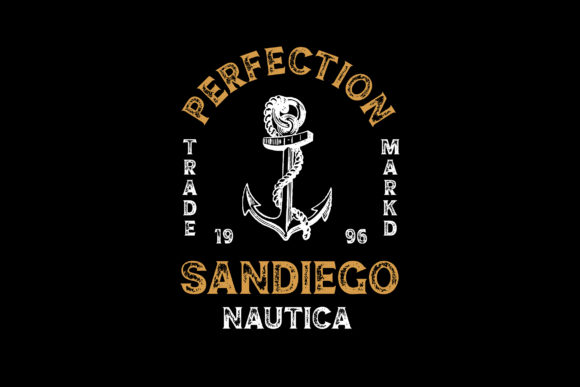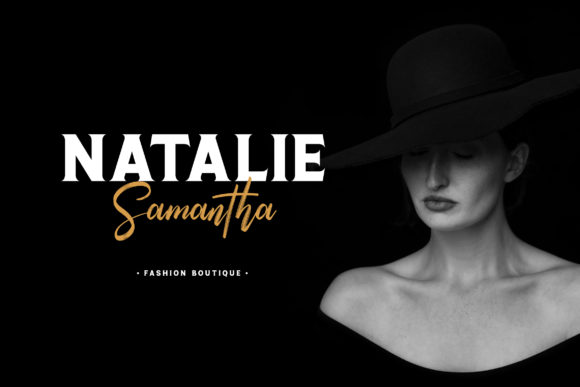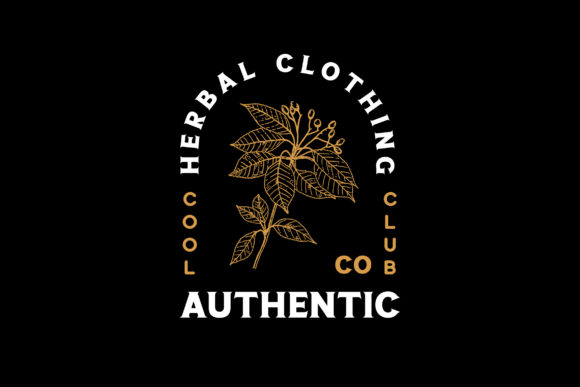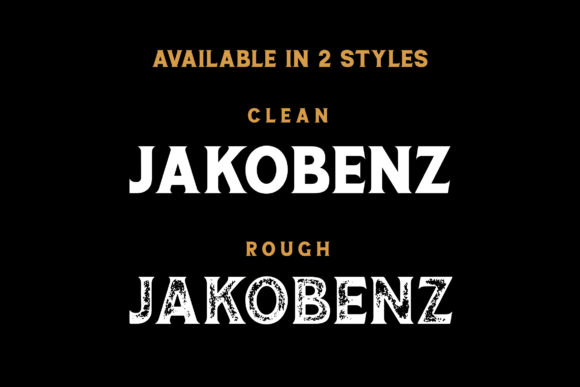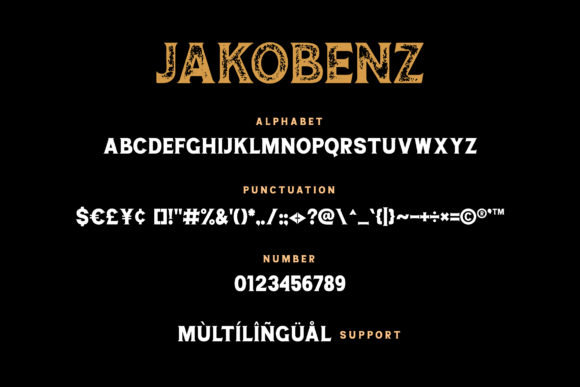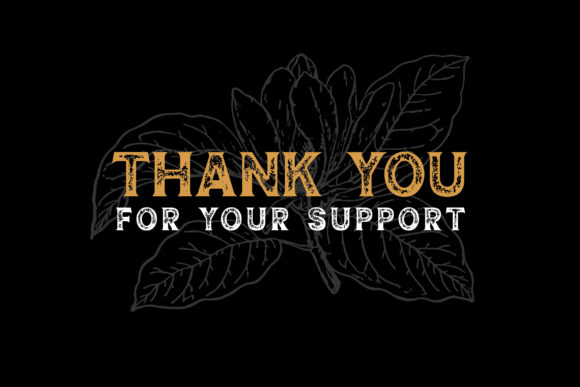
Jakobenz Font – Free Download
Introduction to Jakobenz Font
Jakobenz is a beautiful vintage serif font available in two styles: Clean and Rough.
| 👤 Author | Grezline Studio |
Key Features of Jakobenz Font